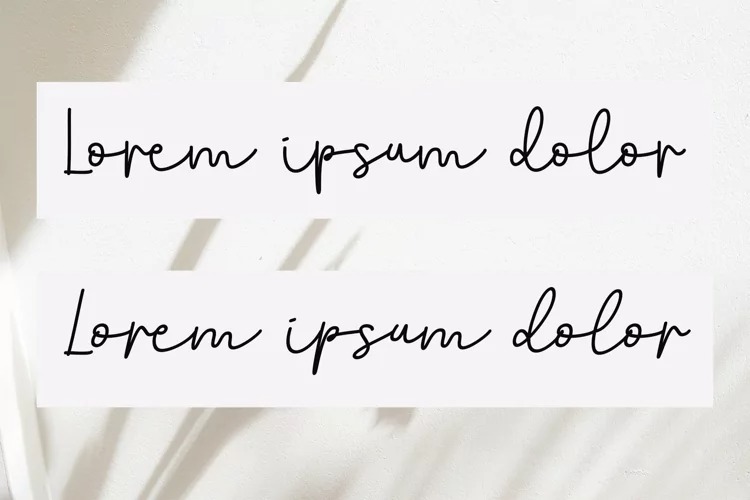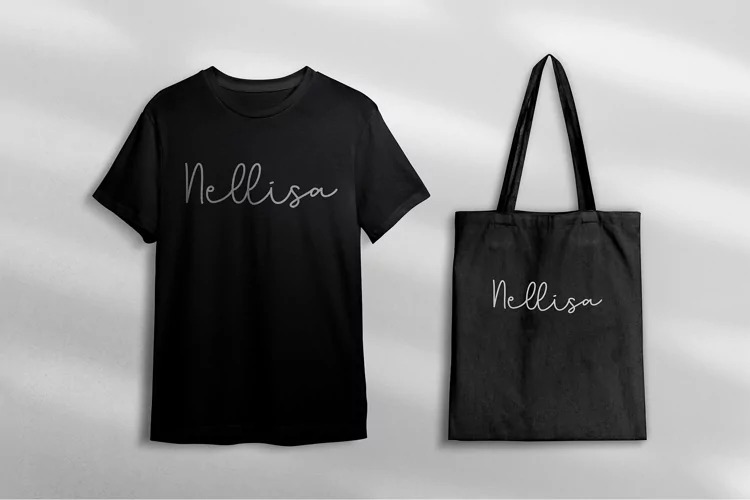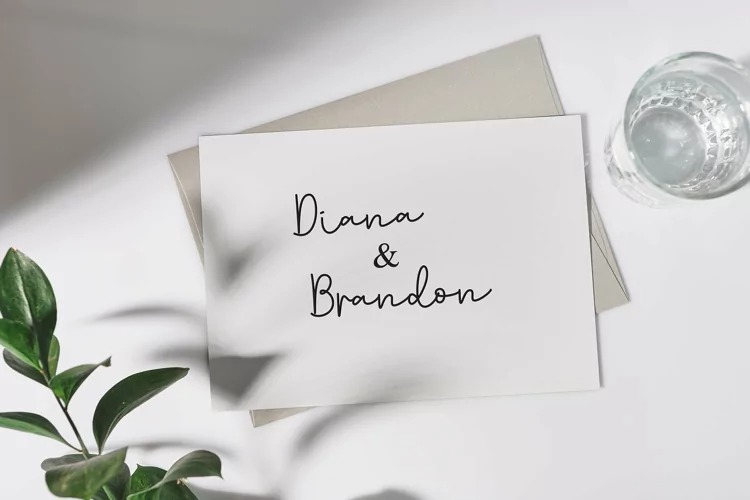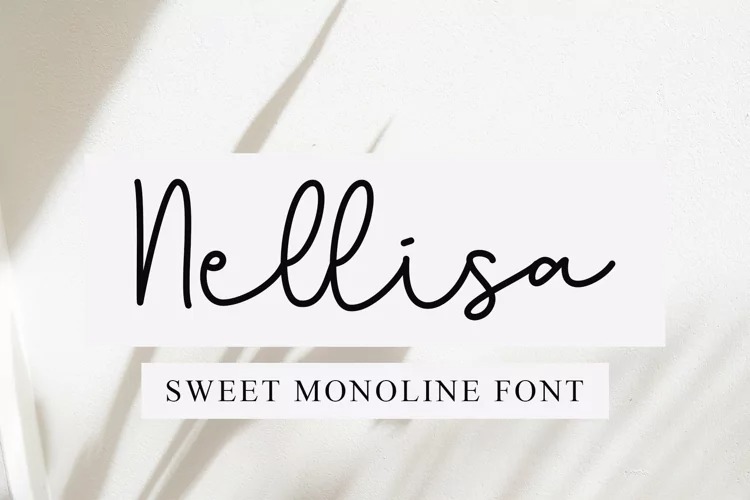
Nellisa Script Font
This is a lovely and delicate monoline typeface that exudes elegance and class. This font has been made with great precision that will make your text look beautiful. It looks stunning on wedding invitations, thank you cards, quotes, greeting cards, logos, business cards, and every other design which needs a handwritten touch. Nellisa is PUA encoded which means you can access all of the glyphs and swashes with ease!